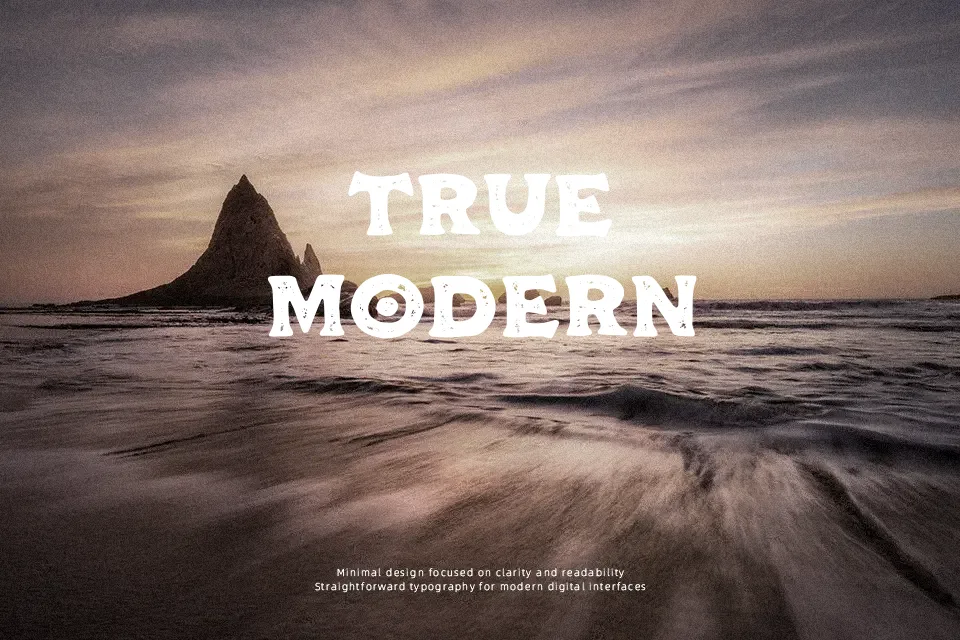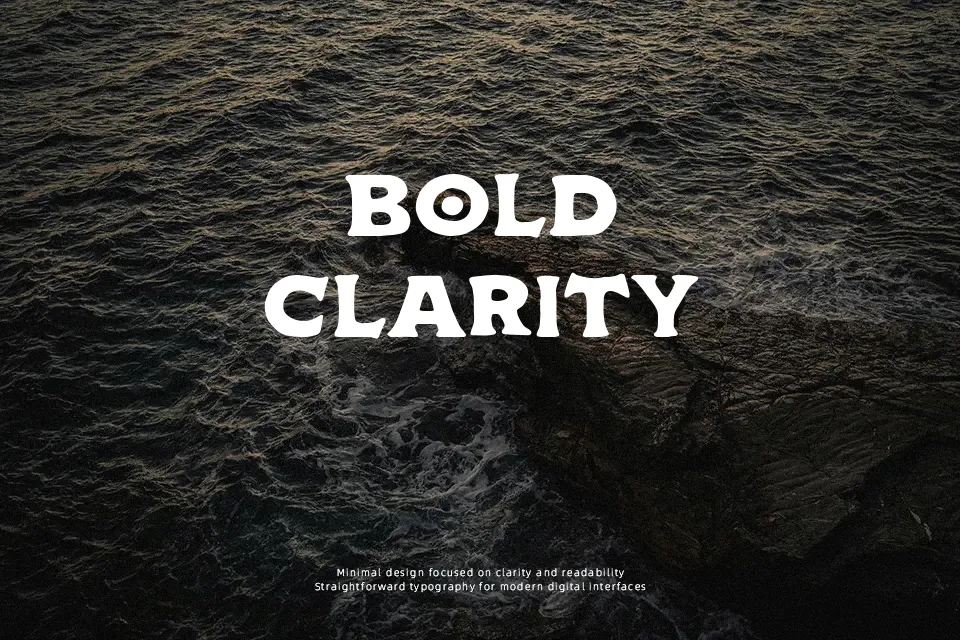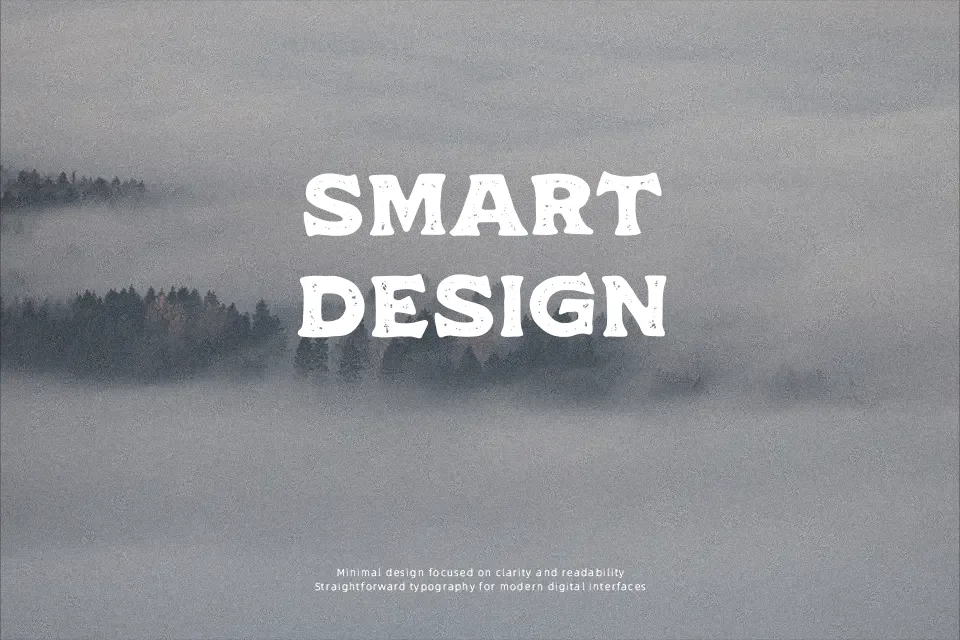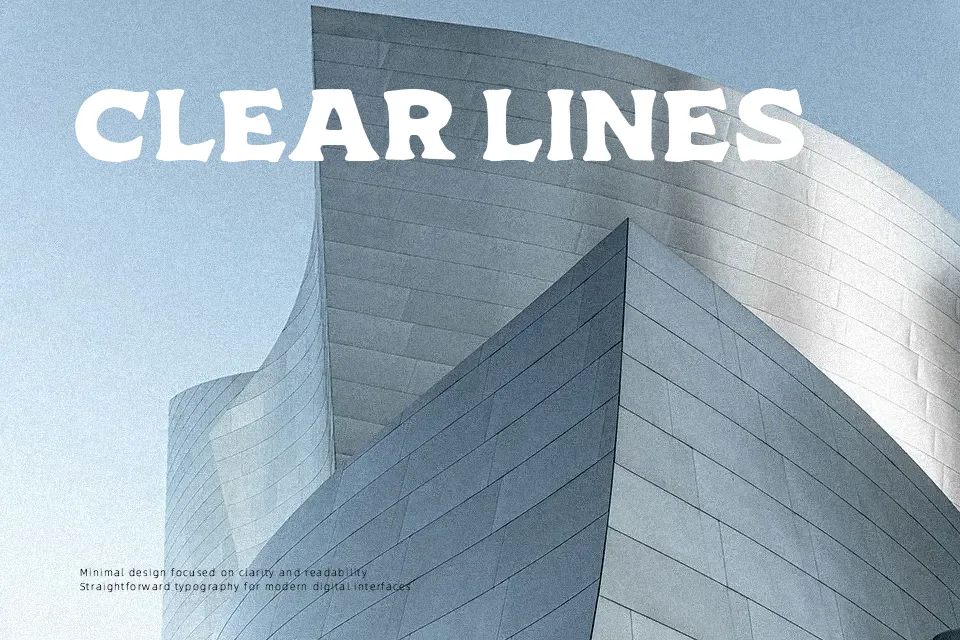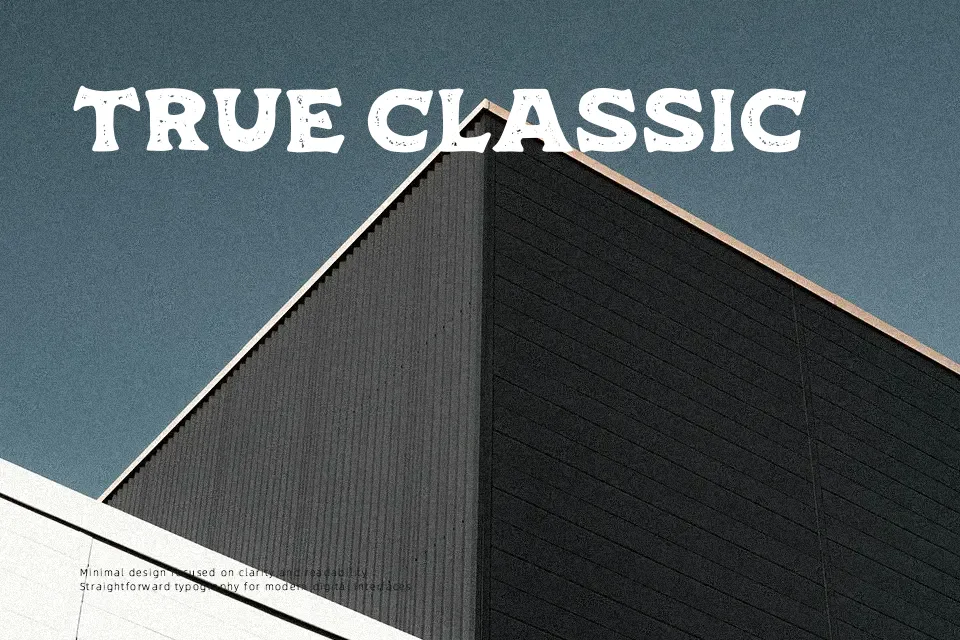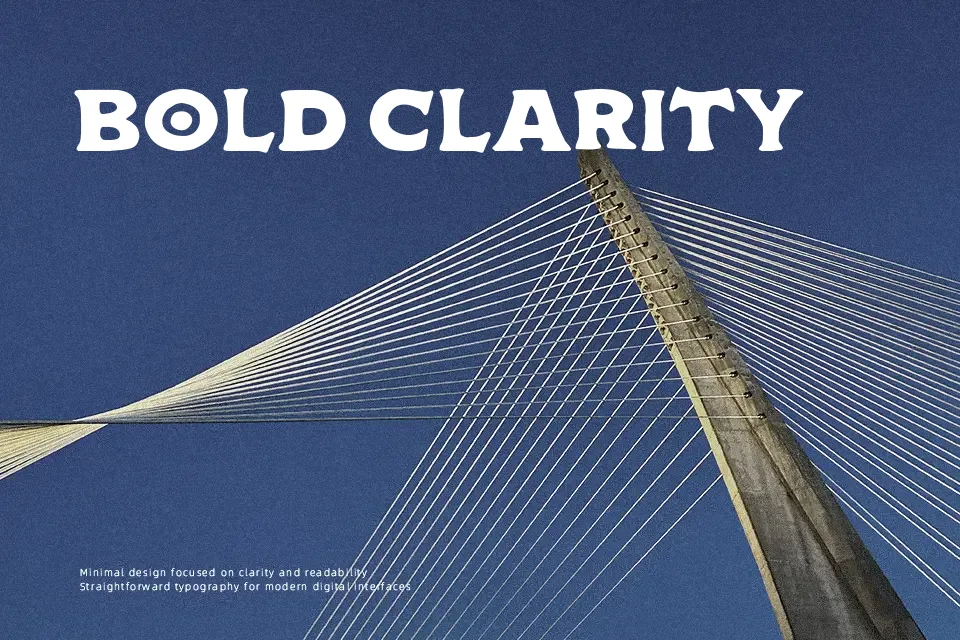
Asper Crown Font
Wide, heavyweight letterforms define Asper Crown’s personality—each character carries an expanded, blocky structure with subtle retro curves that echo early 20th-century signage traditions. The contrast between thick strokes and modest inner spacing gives it a grounded, authoritative feel without drifting into formal territory. Realistically, this is a font for titles and brand marks—not body copy. Trying to run it through a paragraph will create visual fatigue fast, and at small sizes the details collapse noticeably. Where it earns its place is on merchandise labels, vintage-themed restaurant signage, and T-shirt graphics where a single word or short phrase needs to carry the entire visual weight. Think carefully before using the demo version commercially—the free release is personal use only.
Best For:- Vintage merchandise and T-shirt graphics
– Brand logo lockups with a retro-industrial feel
– Craft beer and packaging label headers
– Short-form poster headlines and event titles
Not Ideal For:- Body text or multi-line paragraph content
– Small-size UI labels or button text
– Corporate or formal business documents
– Digital interfaces requiring high legibility
Perfect for advertising, branding, and logo, with a bold and display style.